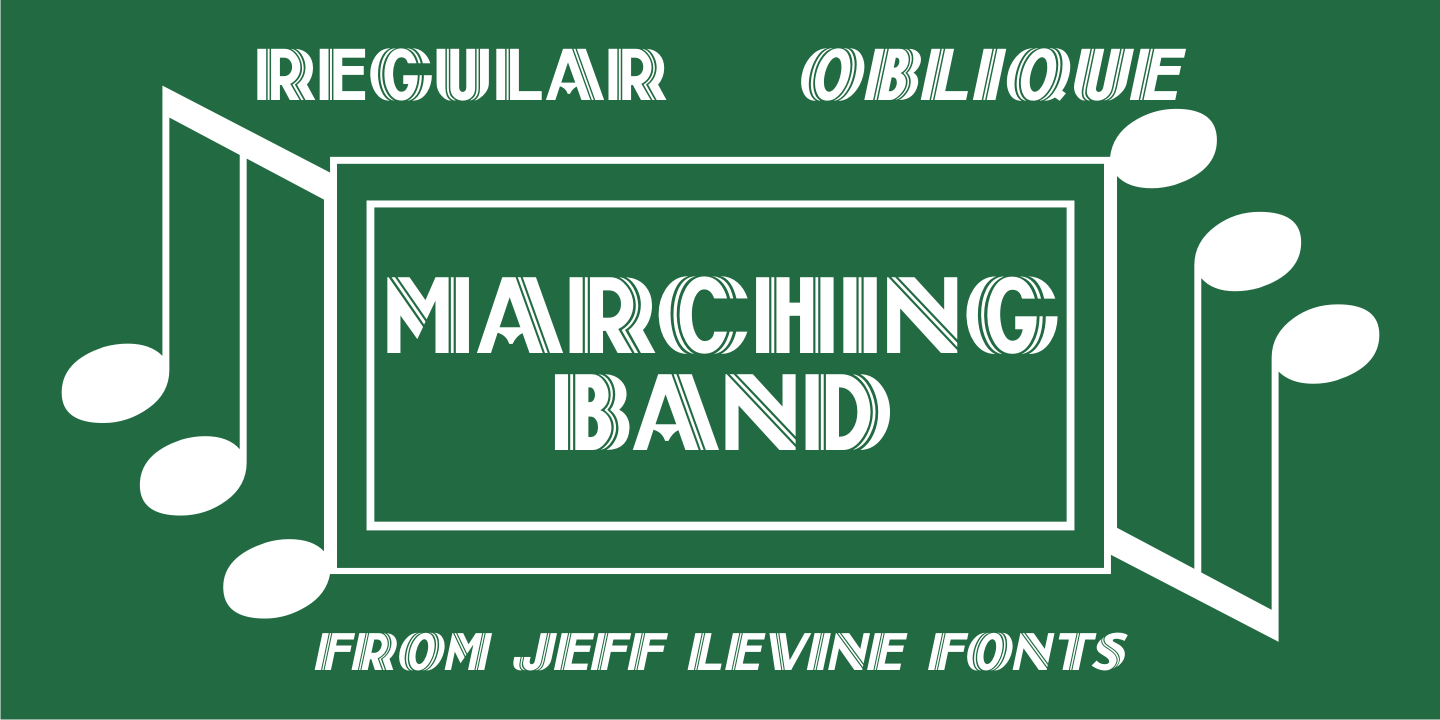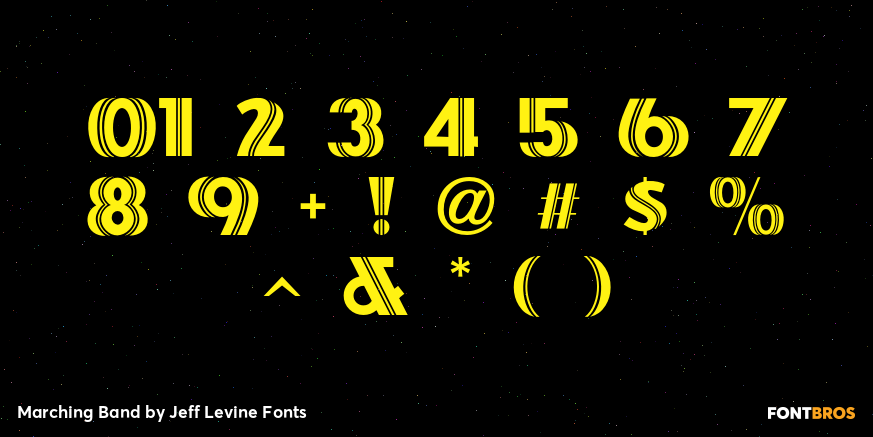
Marching Band
The cover of 'Intermediate Steps to the Band” (an instructional book for marching band originally published by Mills Music in 1947) featured the title in a hand lettered multi-line sans serif with Art Deco influence.
Re-drawn as a digital typeface named Marching Band JNL, it is available in both regular and oblique versions.